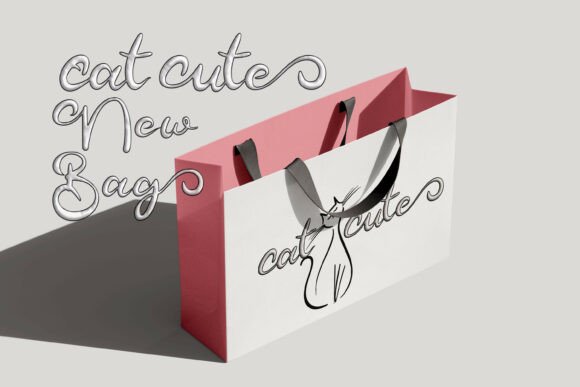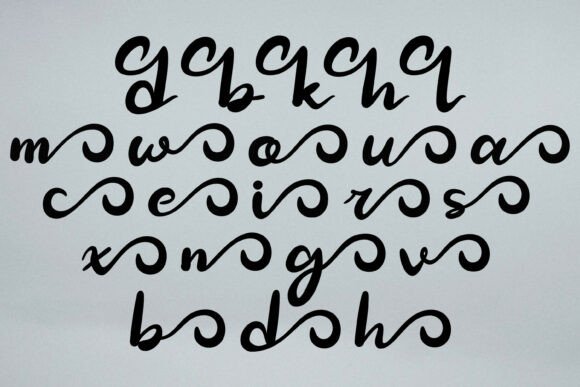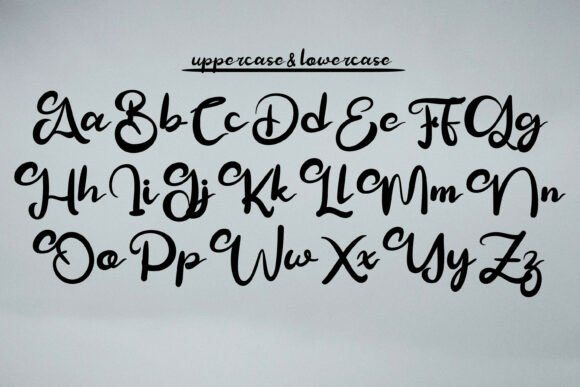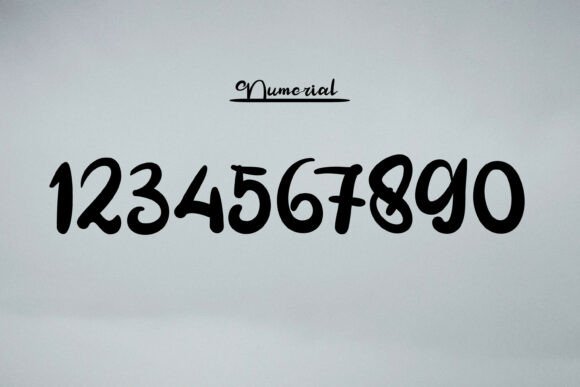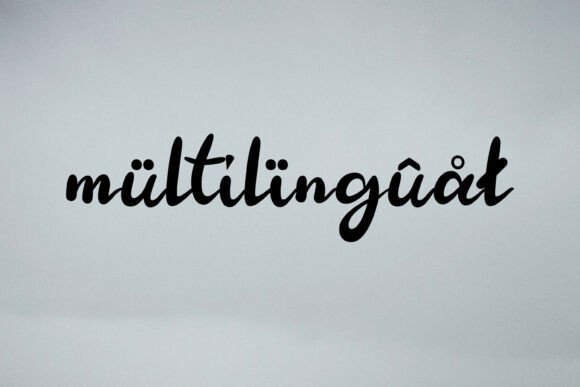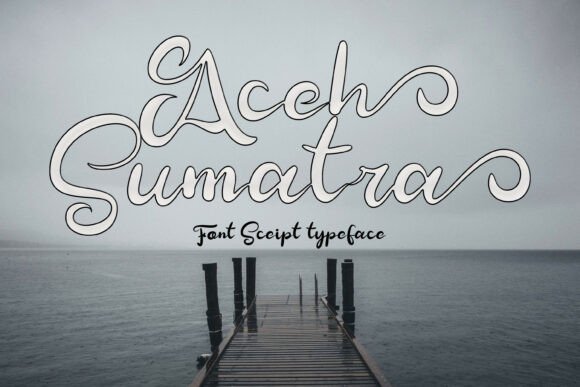
Aceh Sumatra Font: Elevate Your Designs with a Unique and Versatile Typeface
In the world of typography, a font can make or break a design. It’s the perfect blend of aesthetics and functionality that can elevate a project from ordinary to extraordinary. If you’re a designer, crafter, or creative looking for a font that stands out from the crowd, look no further than the Aceh Sumatra Font. This beautiful and eye-catching typeface is designed with a soft, unique touch that will add a special character to your work.
The Distinctive Character of Aceh Sumatra Font
Aceh Sumatra Font boasts distinctive strokes that give it a special character, making it meaningful and versatile for future use. Its unique design ensures that your projects will stand out, whether you’re working on a logo, branding, packaging, or any other creative endeavor. The font’s soft touch adds a touch of elegance and sophistication, making it perfect for a wide range of applications.
Perfect for Design Projects, Crafts, and Creative Works
With various characters, Aceh Sumatra Font is perfect for design projects, crafts, and other creative works. Its versatility ensures that it can be used across different artistic and creative fields, from graphic design and illustration to crafting and DIY projects. Whether you’re creating a business card, brochure, or social media graphic, this font will add a professional touch to your work.
Ideal for a Wide Range of Products
Aceh Sumatra Font is a natural font style that’s ideal for a wide range of products. From stationery and invitations to packaging and branding, this font will enhance your designs and make them appealing to many audiences. Its unique character ensures that your projects will stand out, whether you’re targeting a specific niche or a broader audience.
So, what are the benefits of using Aceh Sumatra Font for designers and crafters? Here are just a few:
• Unique and distinctive character: Add a special touch to your designs with this one-of-a-kind font.
• Versatility: Use it across different artistic and creative fields, from graphic design to crafting and DIY projects.
• Elegance and sophistication: Adds a touch of elegance and sophistication to your designs.
• Professional results: Achieve professional-looking results with this high-quality font.
In conclusion, Aceh Sumatra Font is a beautiful and eye-catching typeface that’s perfect for designers, crafters, and creatives looking for a unique and versatile font. Its distinctive strokes, soft touch, and compatibility with various applications make it an ideal choice for a wide range of projects. Whether you’re working on a design project, craft, or creative work, this font will elevate your designs and make them appealing to many audiences. So why wait? Download Aceh Sumatra Font today and take your designs to the next level!
With Aceh Sumatra Font, you can:
• Create stunning visual content that captures attention.
• Add a professional touch to your designs.
• Stand out in a crowded market.
• Enhance your brand’s identity.